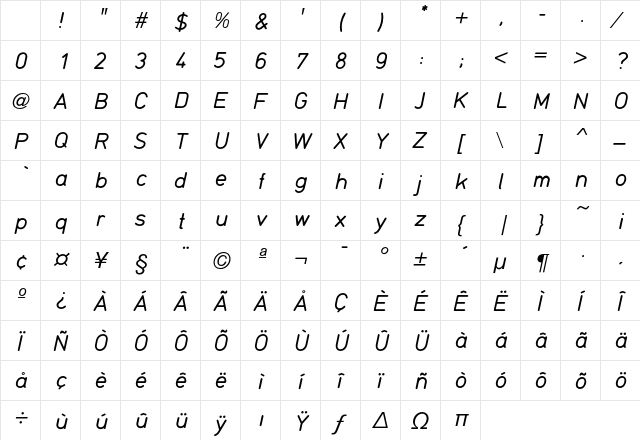
Din16 is a composed and adaptable typeface that performs quietly and consistently across a wide range of design contexts. The slanted form adds forward momentum and visual energy.